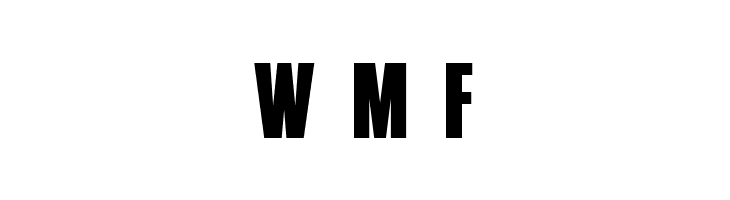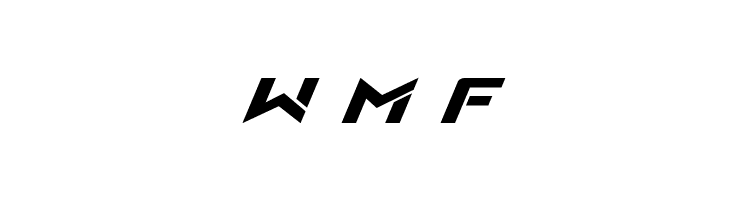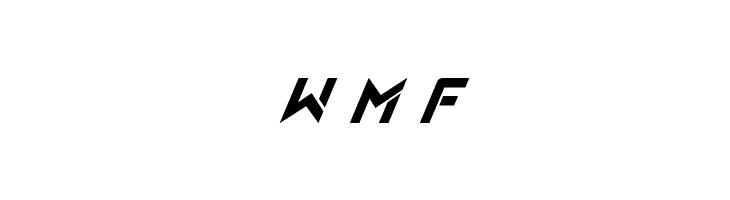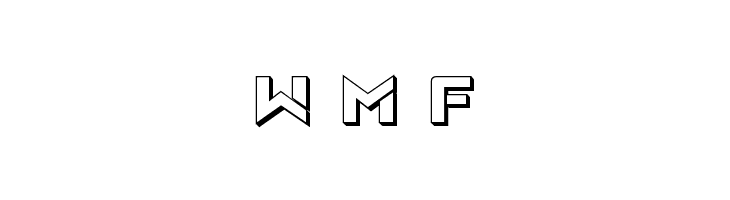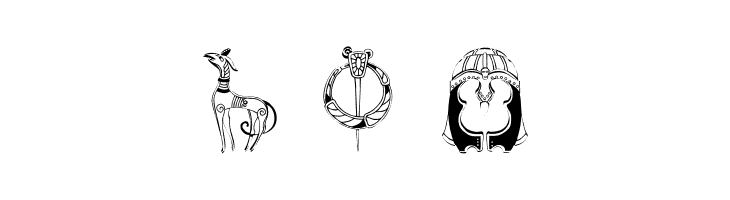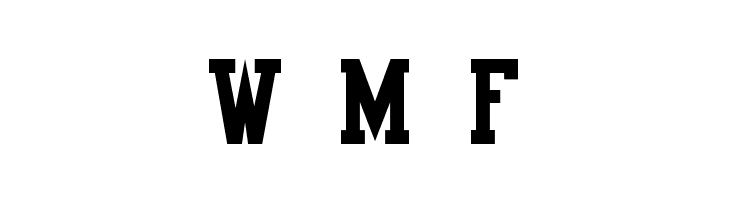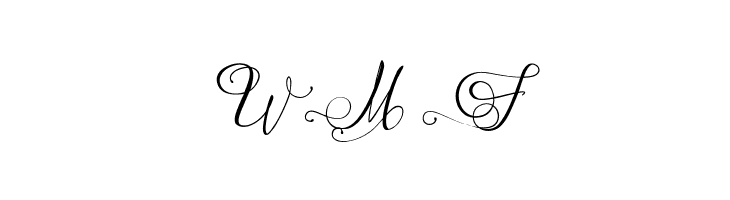
NFL Vikings Font
A bold, blocky font with geometric shapes and sharp edges, perfect for impactful designs.
NFL Minnesota Vikings Font
A bold, geometric font with strong, sharp edges and high contrast.
XXII DONT-MESS-WITH-VIKINGS-HARDCORE Font
Font by Lecter Johnson - doubletwostudios.tumblr.com
A bold, geometric font with a strong, industrial style.
Fabulous Vikings Font
An ornate and decorative font with intricate swirls and flourishes.
VikingsArt Font
Ornate Viking-inspired pictorial font with detailed illustrations.
Viking Squad Condensed Italic Font
A bold, angular, and italic font with a futuristic and condensed style.
Viking Squad Bold Font
A bold, geometric font with sharp, angular edges and a modern style.
Viking Squad 3D Font
A bold, geometric font with a 3D effect and outlined characters.
Viking Squad Outline Font
A bold, geometric outline font with a futuristic and angular design.
Viking Squad Expanded Font
Viking Squad Expanded Italic Font
A bold, italicized, and expanded font with a futuristic and angular design.
Viking Squad 3D Italic Font
A bold, 3D italic font with a modern, angular design.
Viking Squad Laser Italic Font
A bold, futuristic italic font with sharp angles and geometric precision.
Viking Squad Rotalic Font
A bold, slanted font with angular, dynamic characters.
Viking Squad Leftalic Font
Bold, angular font with a leftward slant and geometric design.
Viking Squad Italic Font
A bold, italicized font with a futuristic and angular design.
Viking Squad Semi-Italic Font
A bold, angular, and slightly italicized font with a futuristic and dynamic style.
Viking Squad Bold Italic Font
A bold, italicized font with angular, dynamic characters and a modern aesthetic.
Viking Squad Laser Font
A bold, futuristic font with geometric, stencil-like characters.
Viking Squad Outline Italic Font